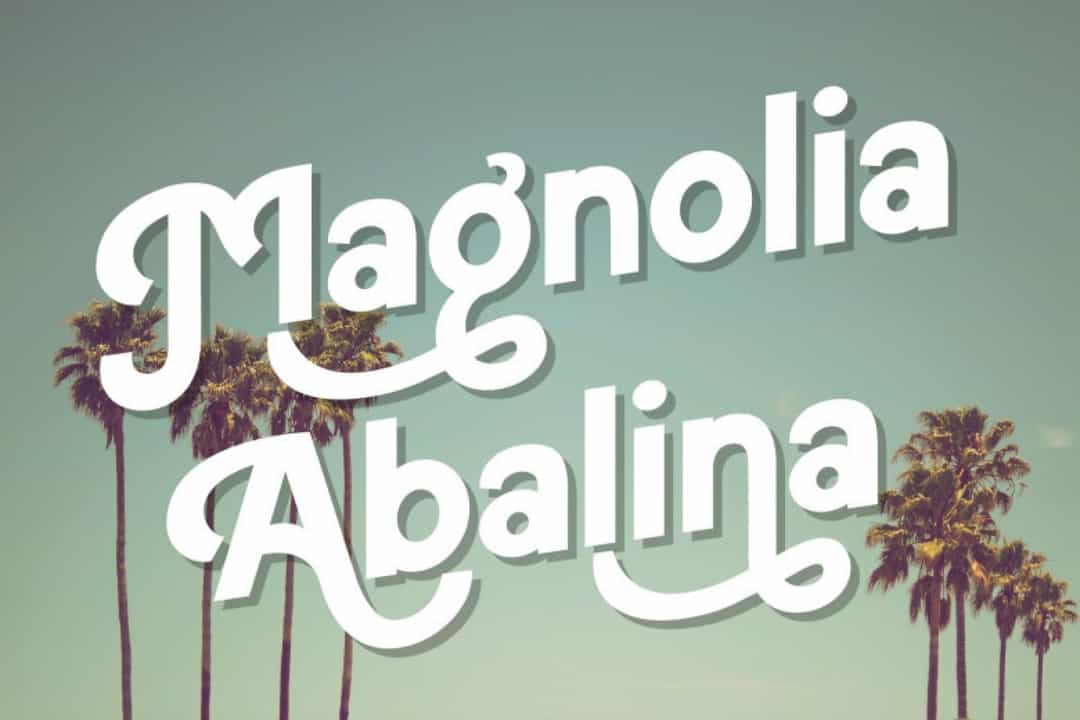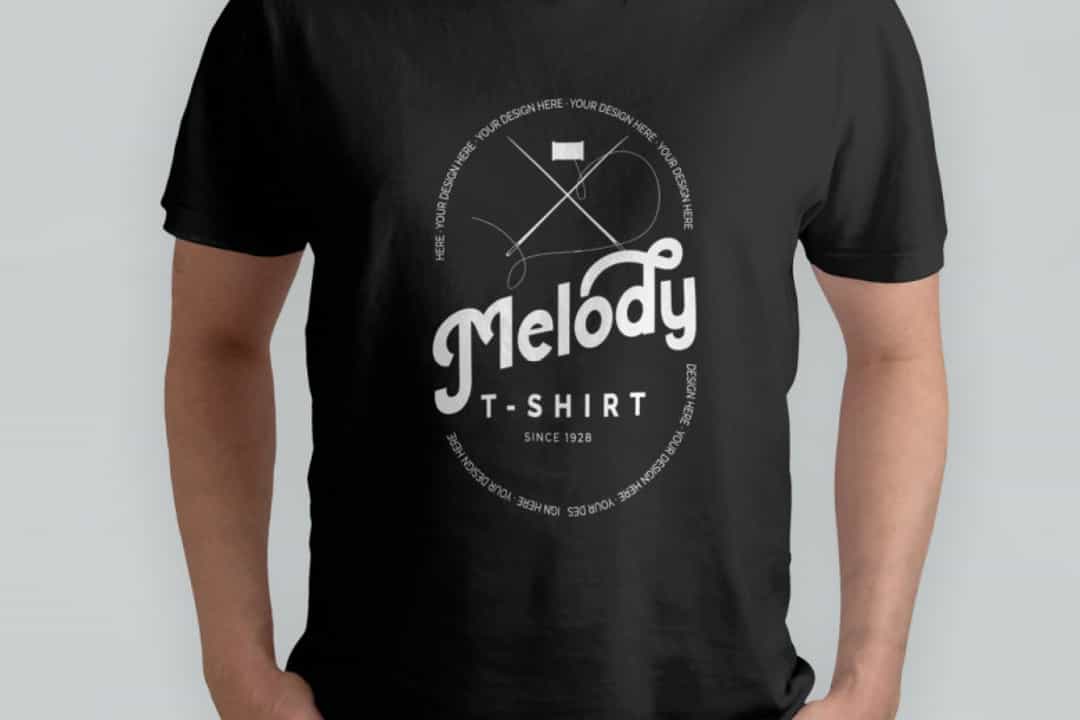
Mandala Vintage font is an eye-catching display font with real and charming characteristics, perfect for any design that requires elegant yet subtle calligraphy! Mandala Vintage Font offers something truly unique and creative; our products will give you an amazing experience.